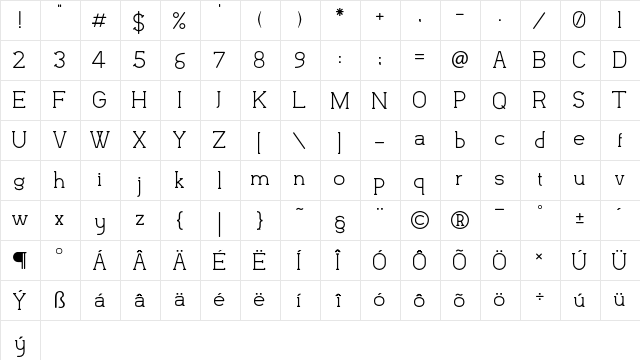
Flatform Light
| Foundry | P42, Matej Sychra |
| Designer | Matej Sychra |
Design Context for Flatform Typeface
Flatform offers clean, dependable letterforms without strong stylistic allegiance, making it a practical choice for designers who need flexibility. Its slender proportions lend an understated elegance to any composition.